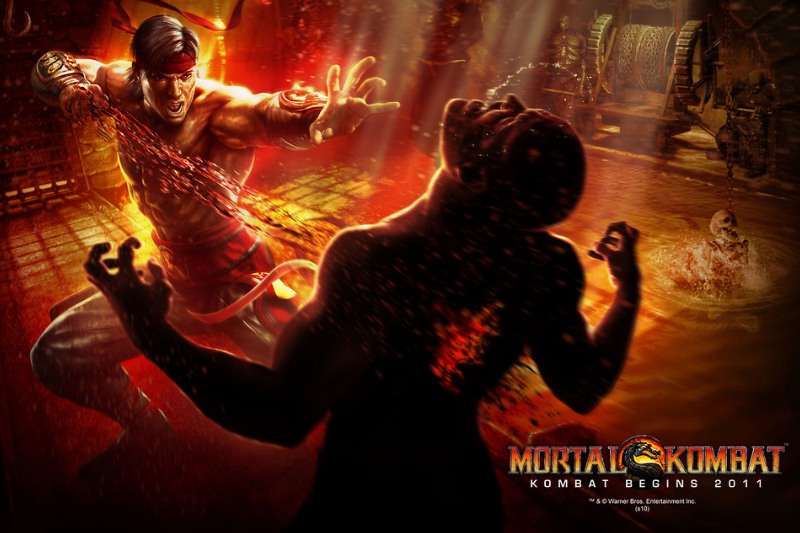
About the Mortal Kombat Font Generator
Mortal Kombat typography is as iconic as a perfect combo β€” bold, jagged, tournament-bracket yellow on black, with a stone-carved or molten metal texture that screams finishing moves and quarter-circle inputs. Since the original 1992 arcade release, the franchise's lettering has been instantly recognizable to fighting game fans worldwide.
• Gaming tournament flyers and event posters
• Fighting game fan art and tribute graphics
• Twitch stream overlays and gaming channel banners
• Cosplay event signage and badges
• Retro arcade-themed social media posts